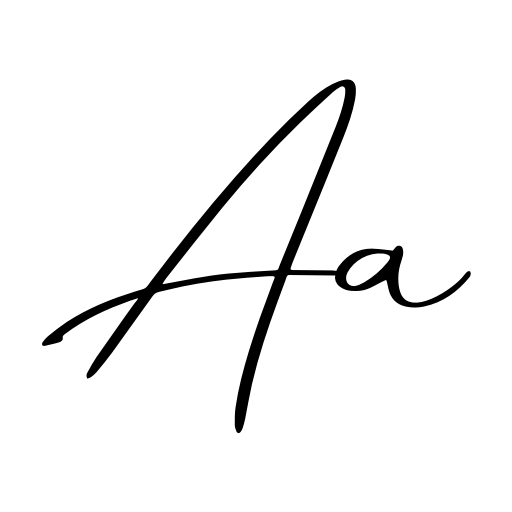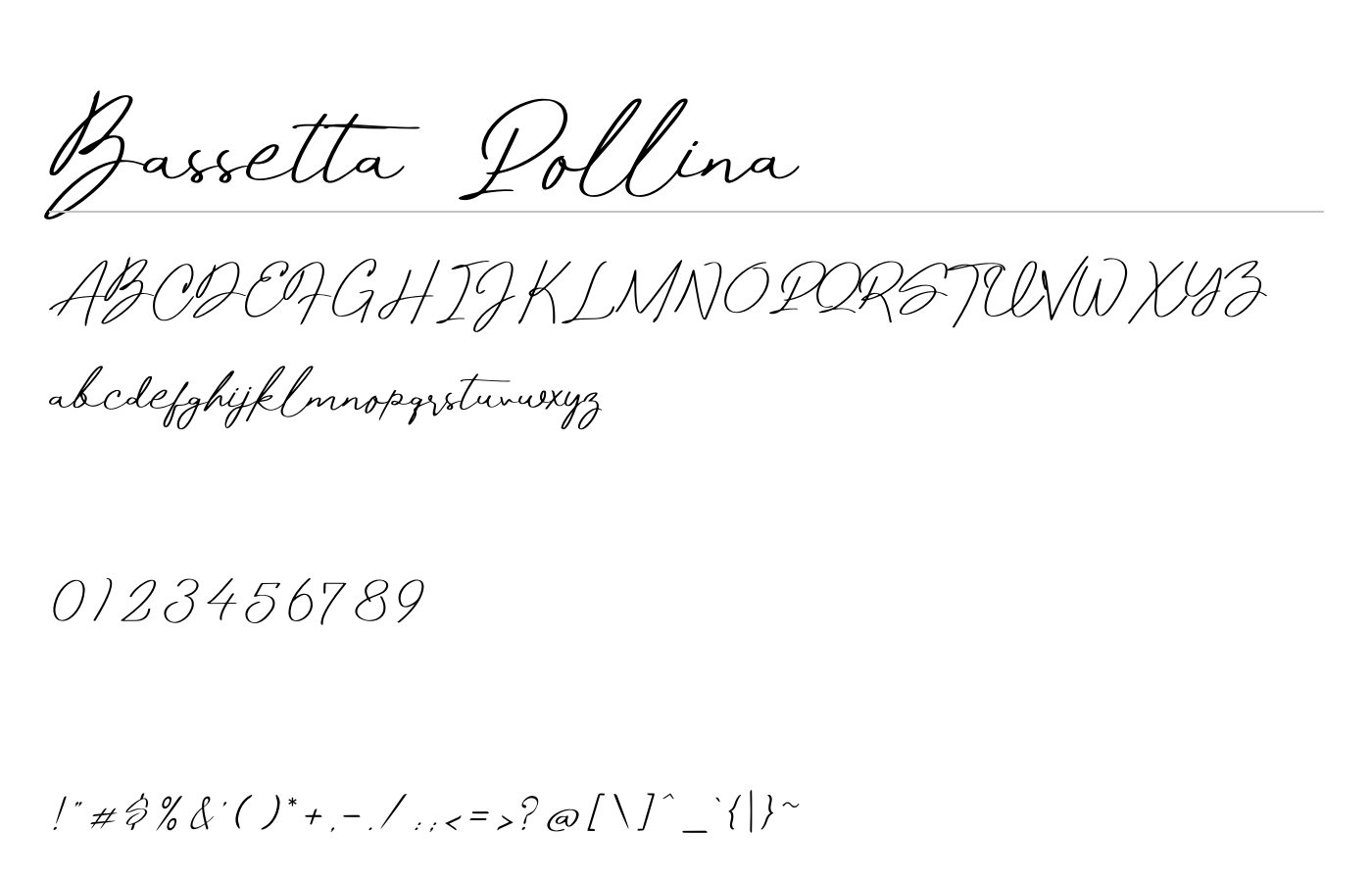
Bassetta Pollina is an elegant, handwritten script font with a thin, delicate stroke that gives it a refined and airy feel. Its flowing letterforms and subtle variations in line thickness create a natural, personal touch, making it ideal for invitations, branding, and stylish editorial projects where a sophisticated yet approachable look is desired. This font works beautifully in headlines and accent text, offering a graceful charm that enhances feminine and creative designs.
Bassetta Pollina Font
About Bassetta Pollina Font
| Font family | Bassetta Pollina Font |
| Designer | Adi Grewfont |